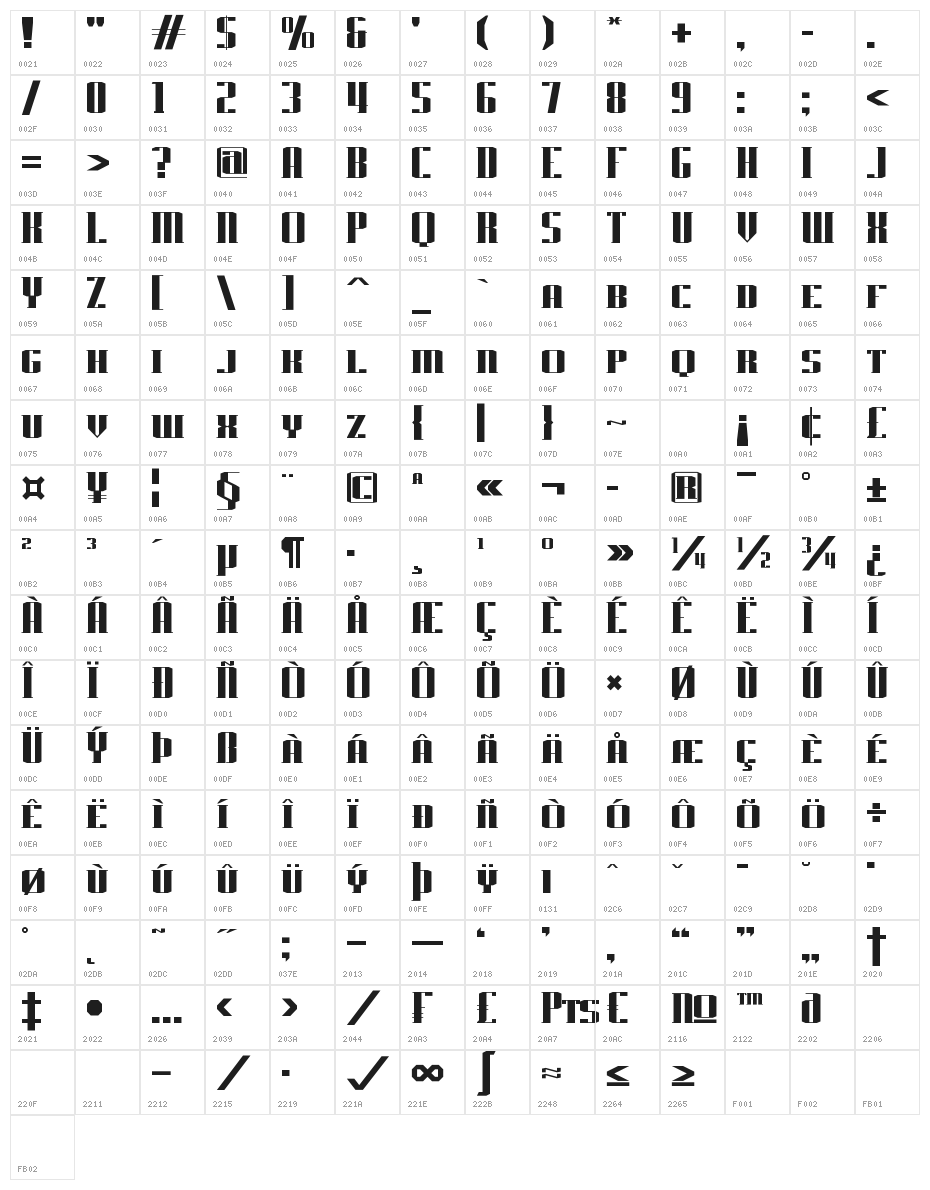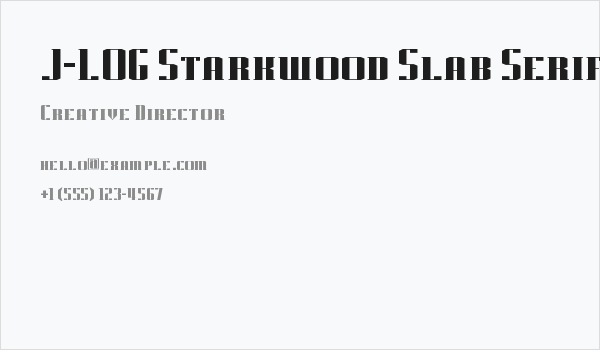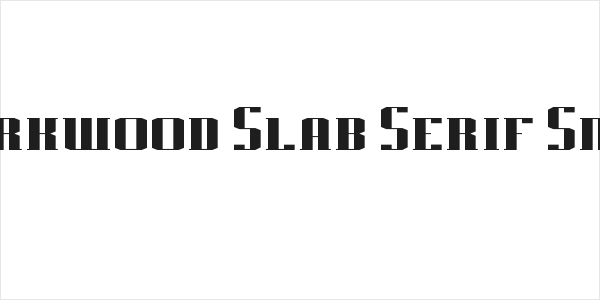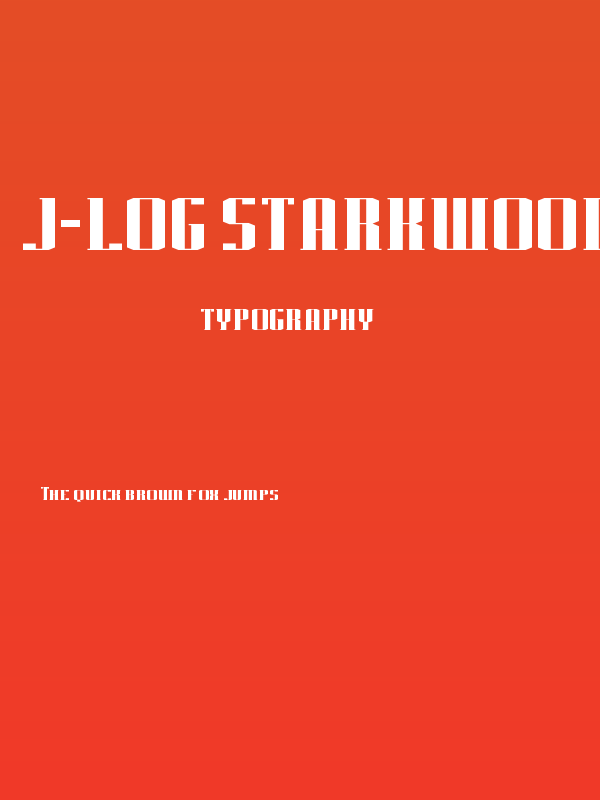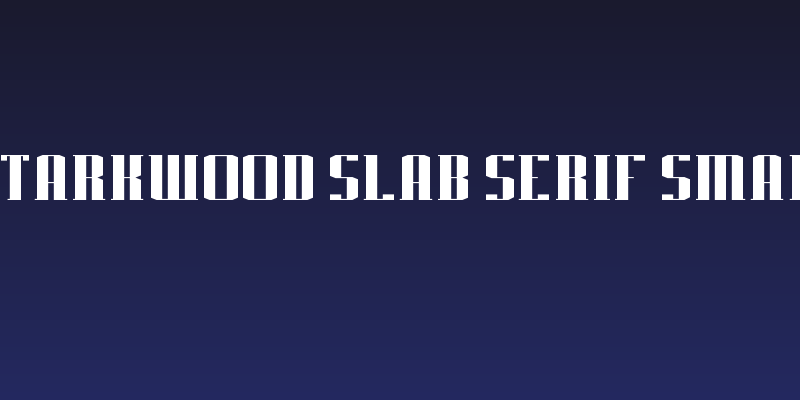
J-LOG Starkwood Slab Serif Small Caps Font
J-LOG Starkwood Slab Serif Small Caps Description
This font exhibits a bold and striking slab serif style with strong geometric shapes and a commanding presence. The uppercase letters are characterized by their thick, block-like serifs and uniform stroke widths, creating a sense of stability and strength. The lowercase letters maintain the same robust structure, ensuring consistency throughout the typeface. Numbers and special characters follow the same design principles, making them highly legible and impactful. The overall design is reminiscent of industrial or vintage styles, suitable for projects that require a bold and authoritative typeface.
Overall StyleVintage
Proposed ProjectsIdeal for branding, posters, headlines, and any design requiring a bold statement.